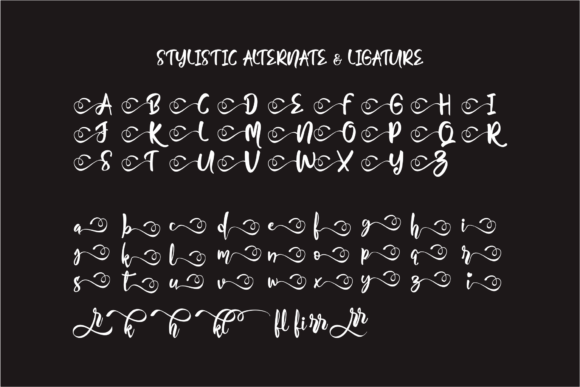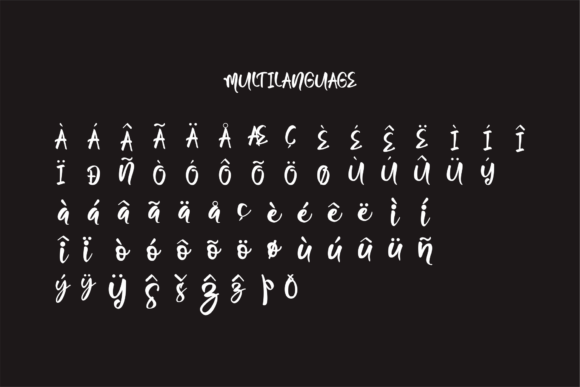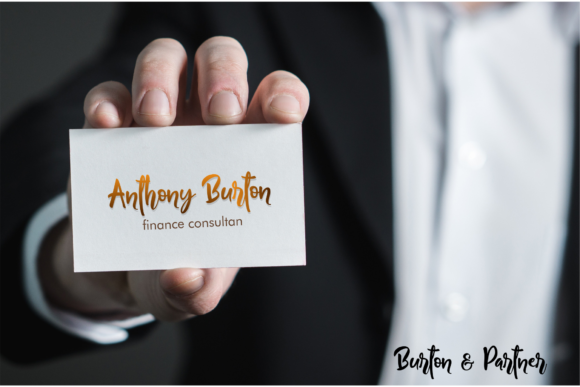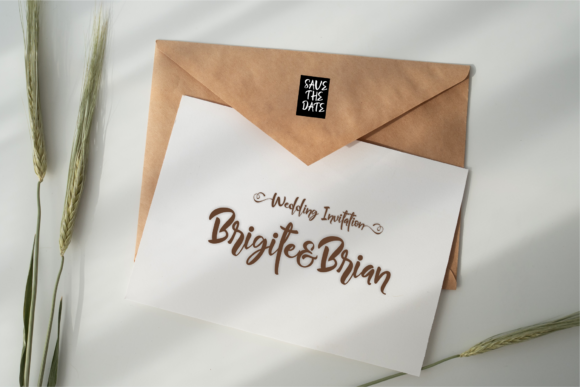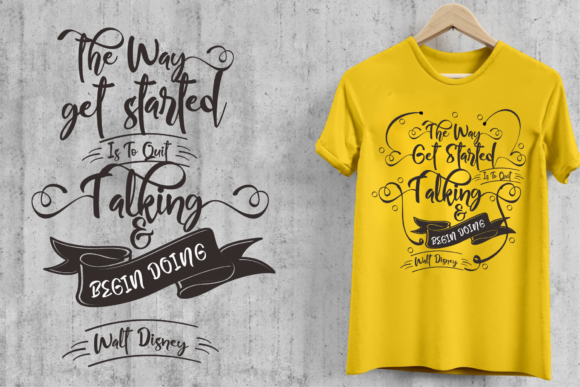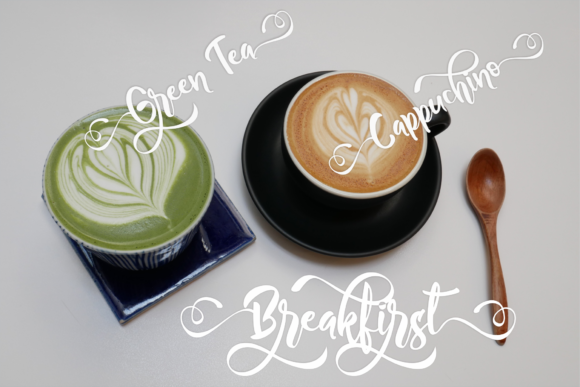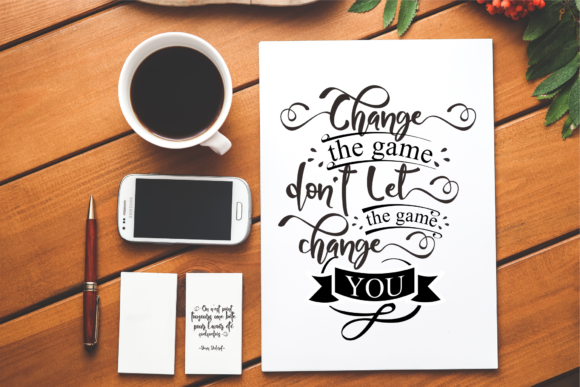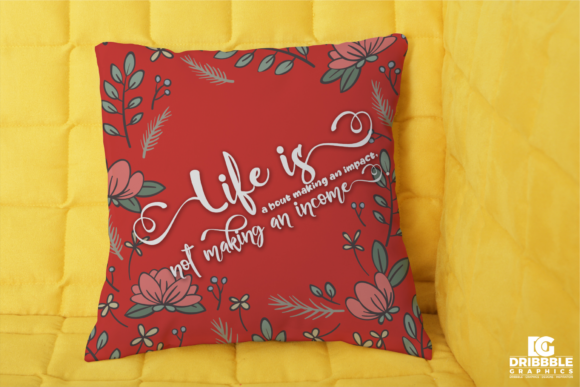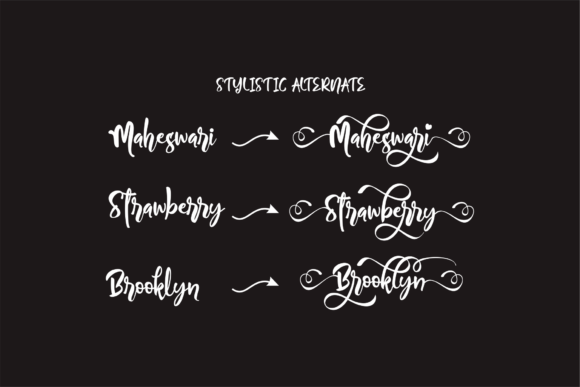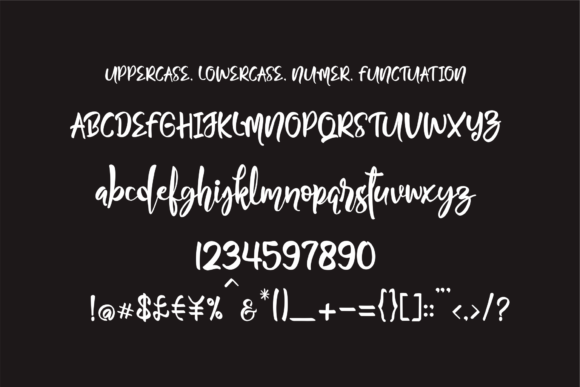
HomeScript FontsMaheswari Font Script Fonts Maheswari Font FacebookXPinterestWhatsApp Maheswari Font Poster 2 Maheswari Font Poster 3 Maheswari Font Poster 4 Maheswari Font Poster 5 Maheswari Font Poster 6 Maheswari Font Poster 7 Maheswari Font Poster 8 Maheswari Font Poster 9 Maheswari Font Poster 10 Maheswari Font Poster 11 Maheswari Font Poster 12 About Maheswari Font Maheswari is a modern calligraphy font with unique style. It is perfectly suited for a wide variety of projects! DOWNLOAD ON CREATIVE FABRICAThis font is sold and delivered by Creative Fabrica. Font Canyon may earn a commission if you buy through this link. People also explored Syahira Font Unbound Font Webstereo Font Hello Belliya Font Glitter Winter Font Mandala Font Spooky Halloween Font Onthel Font Ryujin Font 332 0 TagsMaheswari Font Previous articleJuliet FontNext articleAylogri Font LEAVE A REPLY Cancel reply Comment: Please enter your comment! Name:* Please enter your name here Email:* You have entered an incorrect email address! Please enter your email address here Website: Save my name, email, and website in this browser for the next time I comment. Personal Use Free Capellen Personal Use Free Read more about this font Cosmos Personal Use Free Read more about this font Axaxax Bold Personal Use Free Read more about this font Arc Personal Use Free Read more about this font BLOG 5 Fonts That Will Dominate Design Trends in 2026 5 Fonts for 2026 That Will Dominate Design Trends Typography plays a critical role in visual communication, and as we look ahead to 2026, it’s... Fonts That Capture the Spirit of New York City Free vs Paid Fonts: Why Investing in Premium Fonts Is Worth It Where to Buy American Fonts Online in 2024